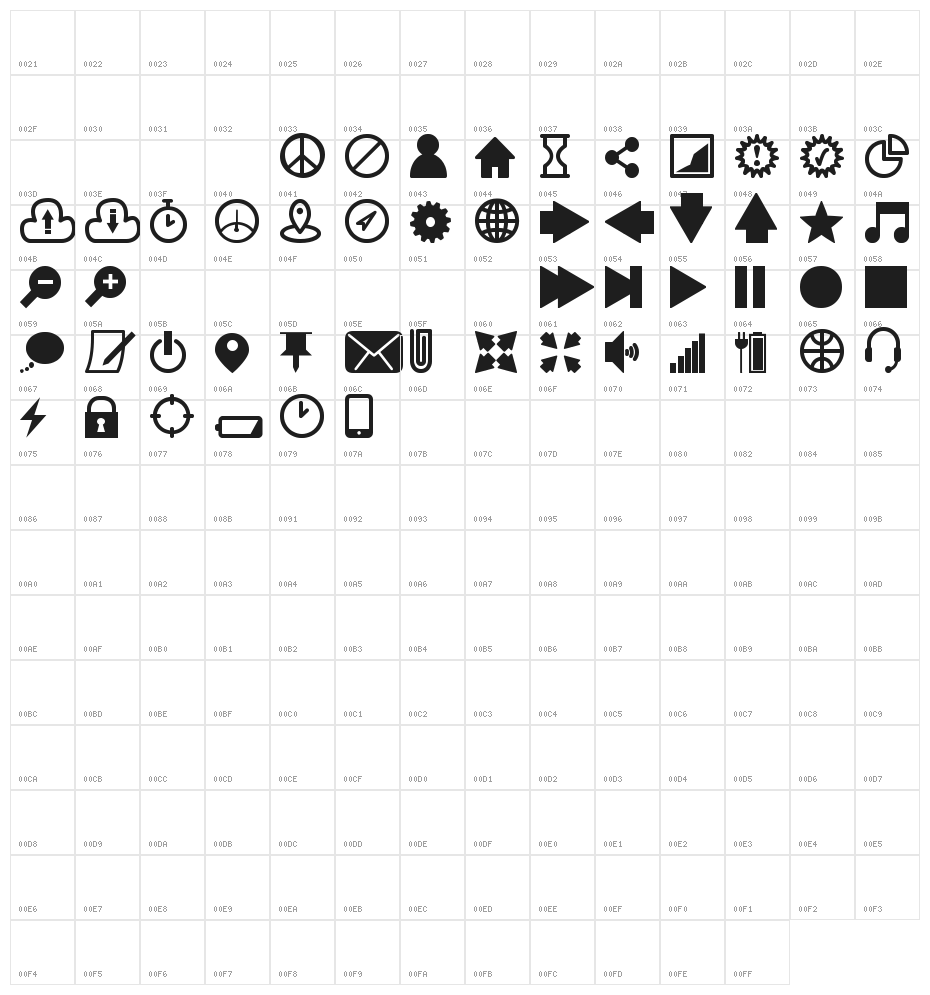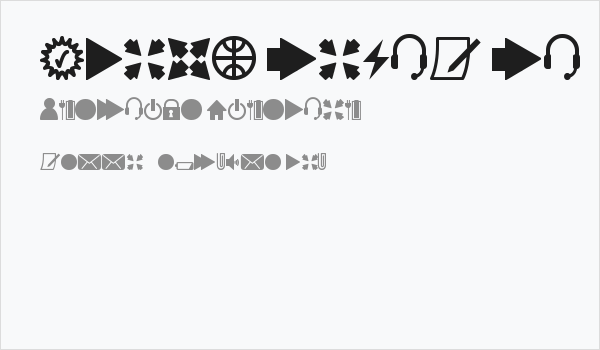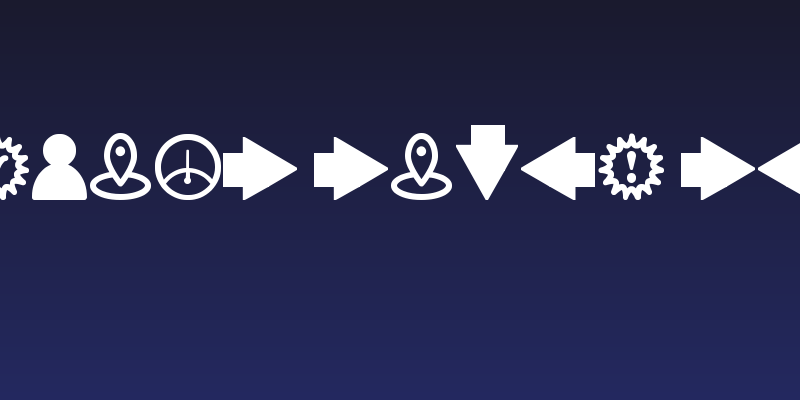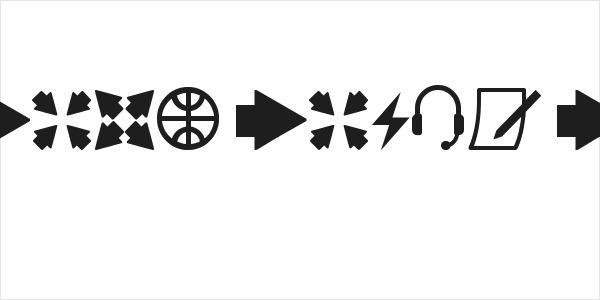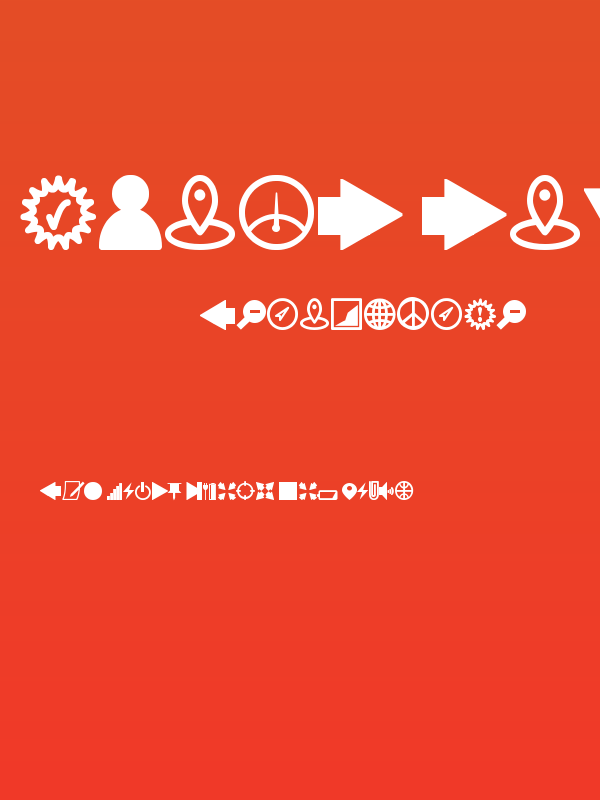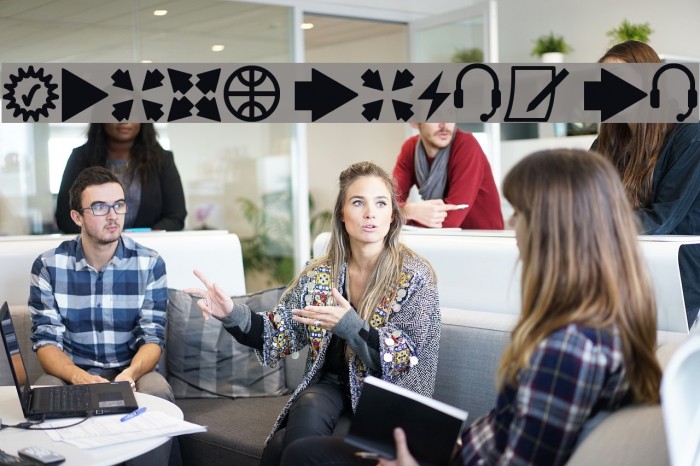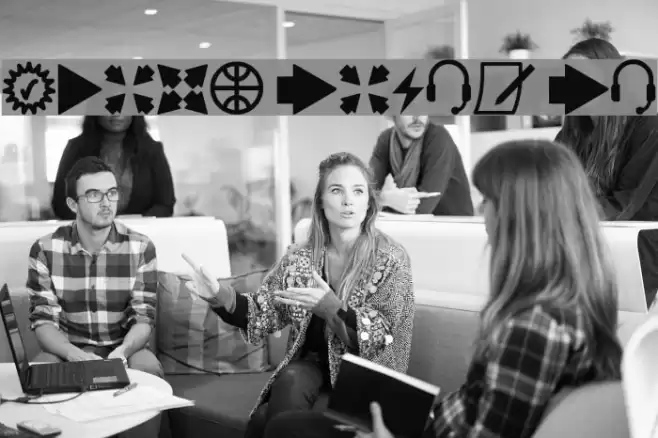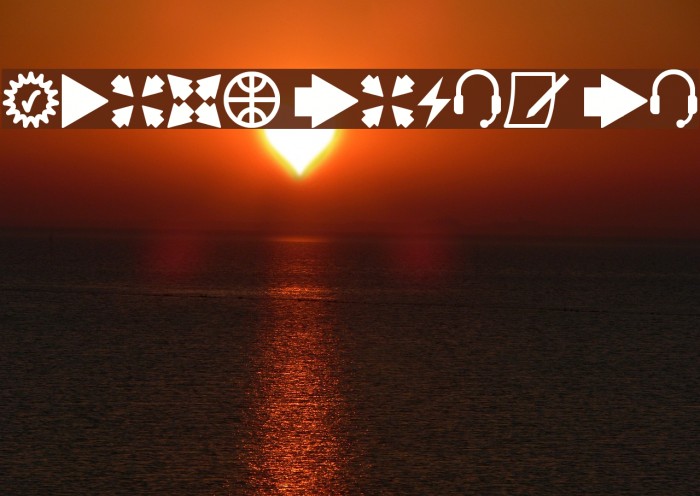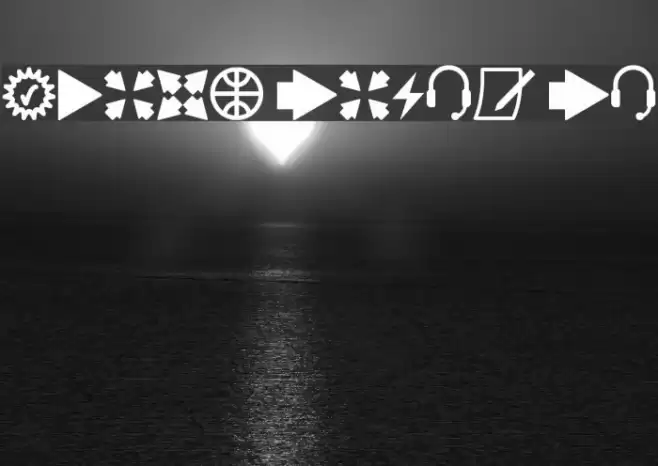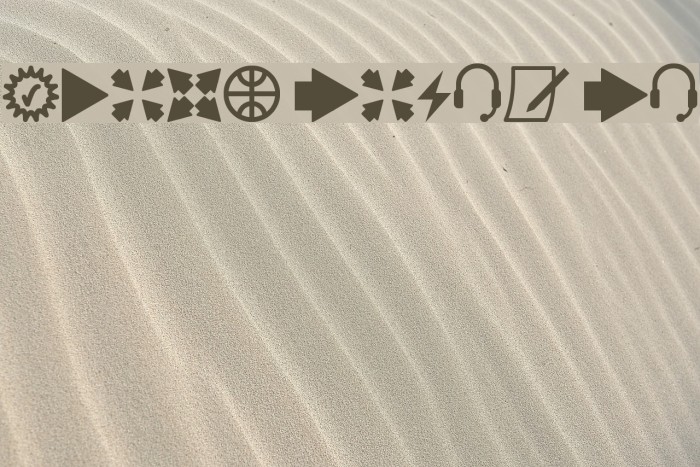
Icons South St Font
A bold, geometric icon set featuring a wide variety of symbols such as peace signs, user silhouettes, arrows, clocks, clouds, music notes, and interface elements. The icons are solid, high-contrast, and uniformly styled with rounded and angular shapes, making them easily recognizable and visually cohesive.
| Overall Style | Modern, Minimalist, Functional |
| Use Case | Icons, UI elements, Buttons, Navigation |
| Proposed Projects | Mobile apps, web interfaces, dashboards, infographics, signage, presentations. |